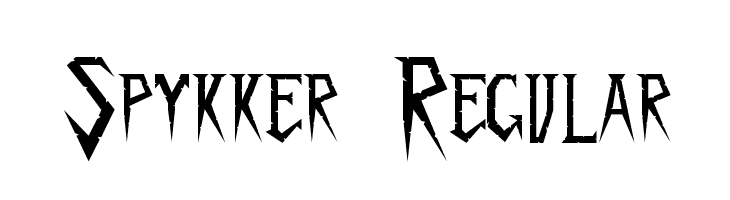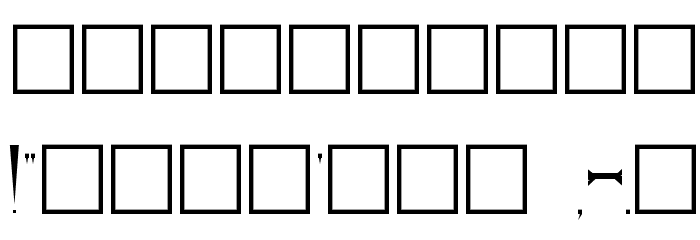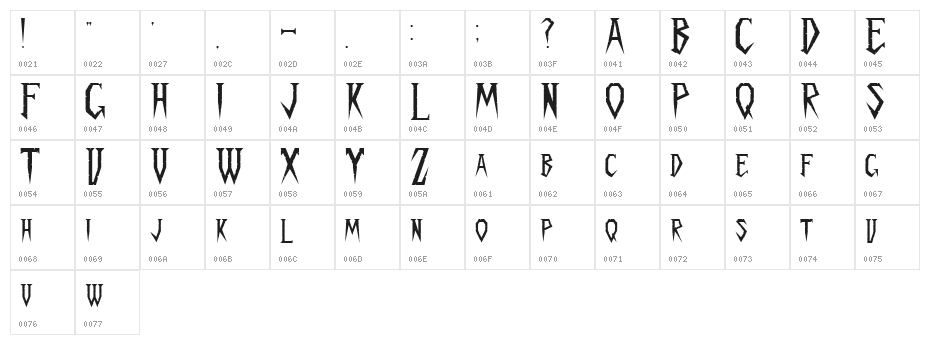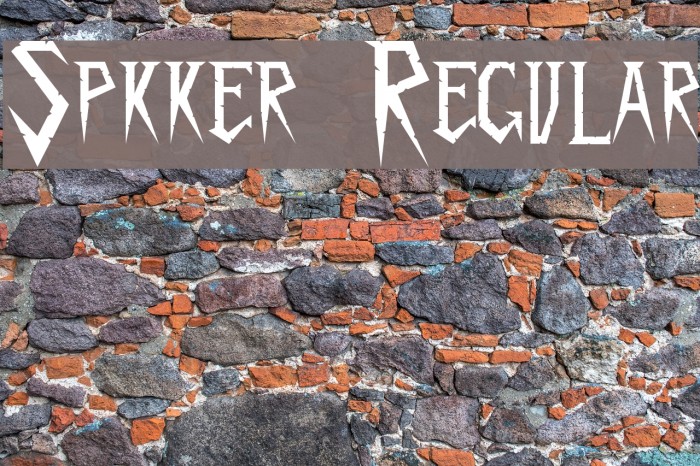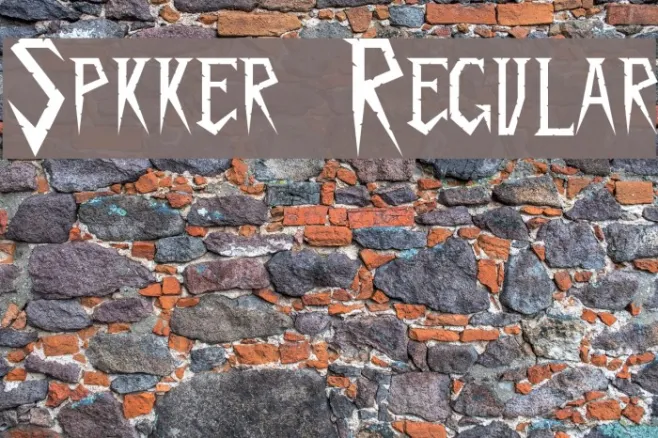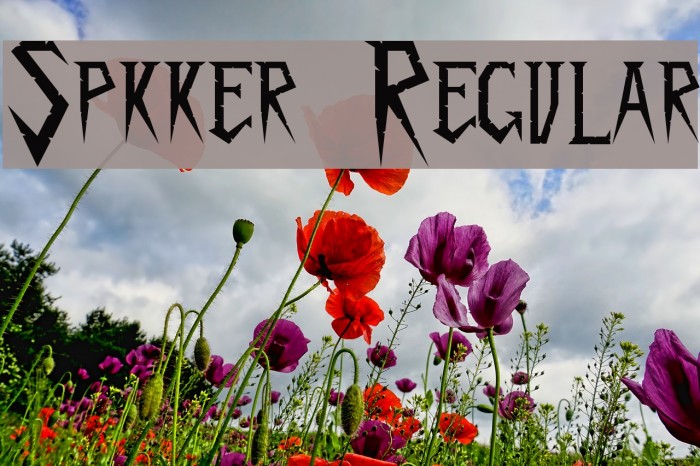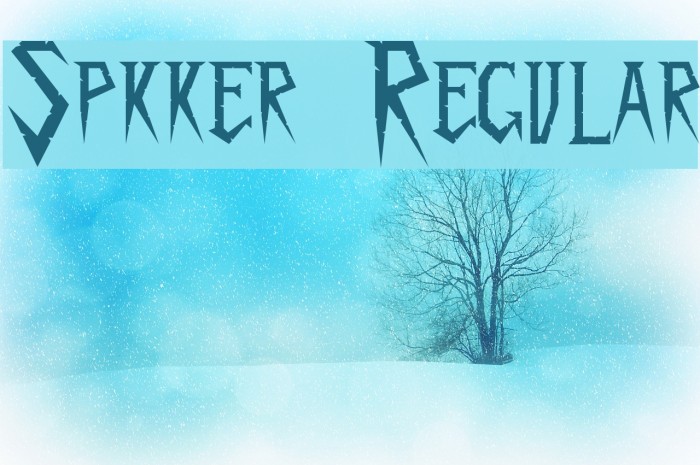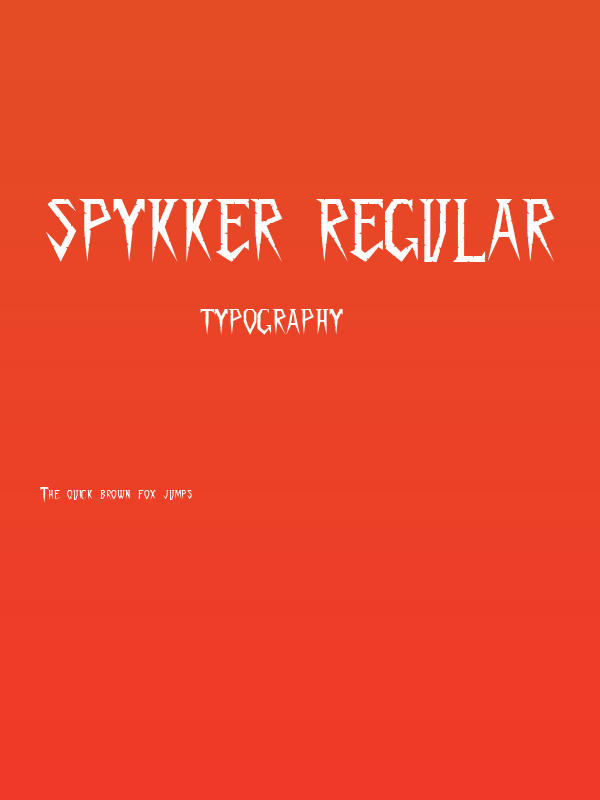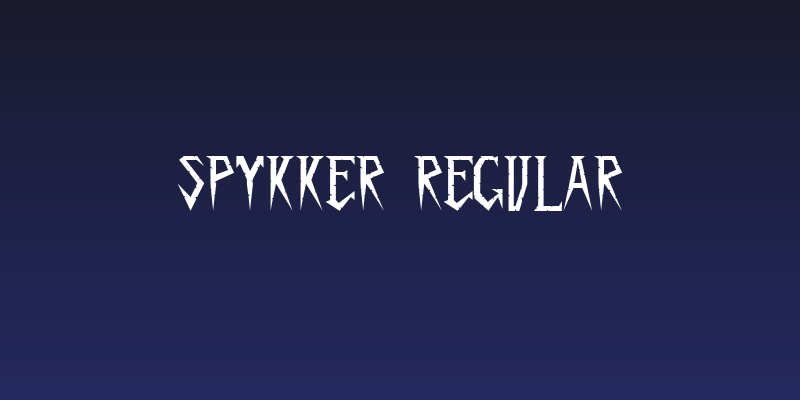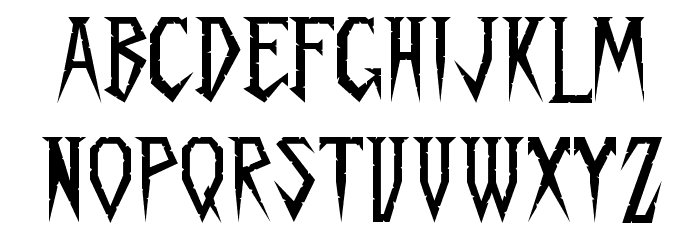
Spykker Regular Font
Spykker Regular Description
This font features a bold and edgy design, characterized by sharp, angular lines and a jagged appearance. The uppercase letters are particularly striking, with elongated points that give a sense of movement and intensity. The overall style is reminiscent of a gothic or horror theme, making it ideal for projects that require a dramatic and impactful visual presence. The font maintains a consistent weight throughout, with medium contrast in stroke thickness, adding to its bold and assertive look. The character spacing is relatively tight, enhancing the compact and cohesive feel of the text.
| Overall Style | Gothic, Dramatic |
| Proposed Projects | Ideal for horror-themed posters, album covers, video game titles, and Halloween event promotions. |